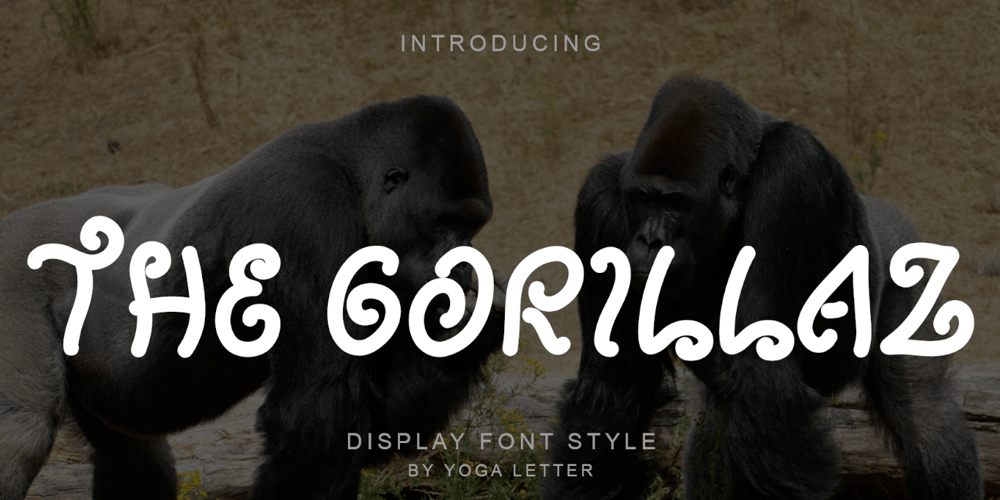
The Gorillaz Font Family was designed by Isroni Yoga Prasetya and published by Yoga Letter. The Gorillaz contains 1 styles and family package options. “The Gorillaz” is a unique display font with twisting letters. Equipped with uppercase letters, lowercase letters, numerals, punctuation, and multilingual support. Very suitable for banners, posters, prints, World Wildlife Day, logos, stickers, branding, summer, vacation, scenery, wildlife, comics, and others.